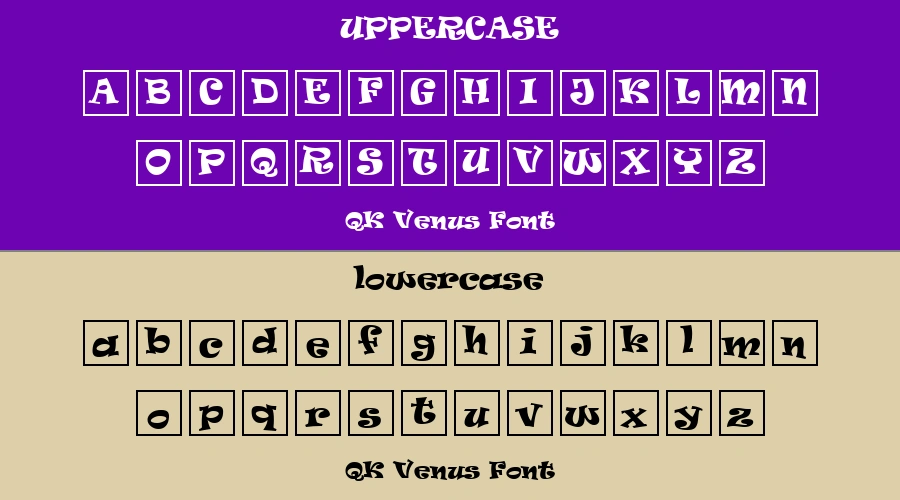
About QK Venus Font
Designed with precision, QK Venus Font merges angled joins with brand distinction in every character. This versatility makes it particularly effective for technical manuals, where accuracy and adaptability directly impact communication quality. Each letterform demonstrates meticulous craftsmanship.
Technical excellence shines through elements like consistent strokes and subscript/superscript, enhancing typographic versatility. In specification sheets settings, QK Venus Font proves its worth through superior memory recall. The thoughtful execution of apex design and creative versatility ensures professional results.